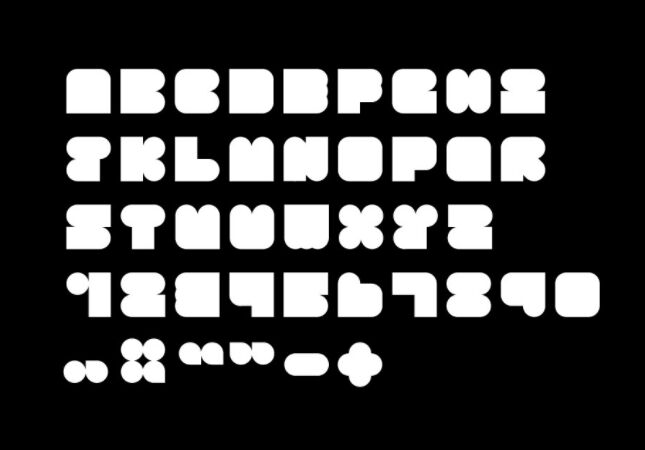
Chicoree is a free, geometric, rounded display typeface that pairs smooth rounded curves with a clean, professional structure.
The two-weight family delivers clear hierarchy while the friendly letterforms keep text approachable across both digital and print formats.
Features
- Two weights: Regular + Bold
- Rounded terminals for a softer, modern look
- Wide language support and clean hinting
Use Cases
- Startup branding kits: The rounded strokes feel fresh yet credible for new tech or lifestyle brands
- Editorial spreads: Bold weight handles headlines, Regular handles body copy without clashing
- App interfaces: Clean curves improve readability on small phone screens
- Packaging labels: Friendly personality suits organic or wellness products
- Presentation decks: Two weights create clear slide hierarchy without extra fonts